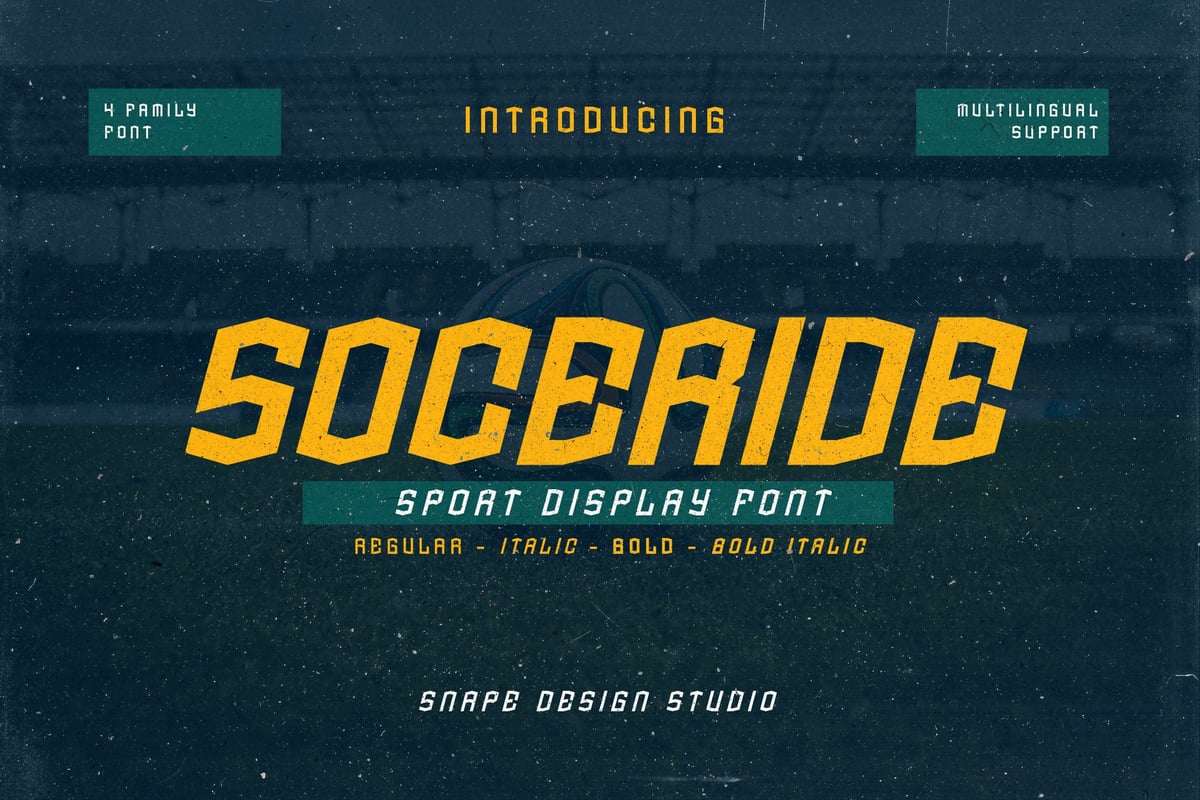
Soceride - Sport Font
Make your sport-inspired designs stand out with Soceride's bold, attention-grabbing typography that commands the field. Soceride is a sport font engineered to deliver power and vibrancy to any project requiring a bold aesthetic. This dynamic typeface brings competitive energy to your creative work, making it perfect for sport design, team branding, jersey lettering, league materials, movies, documentaries, films, logos, posters, games, book covers, headlines, titles and countless other projects....